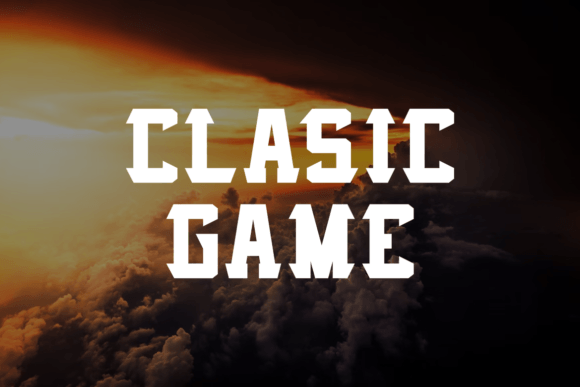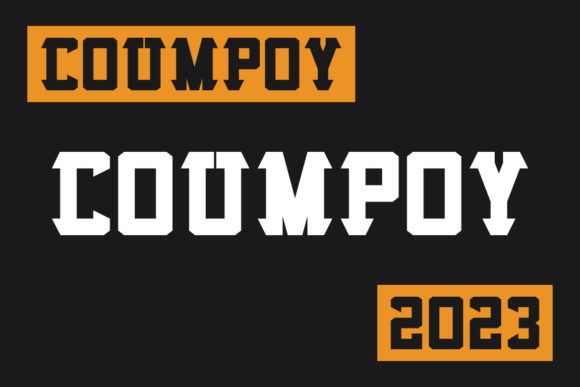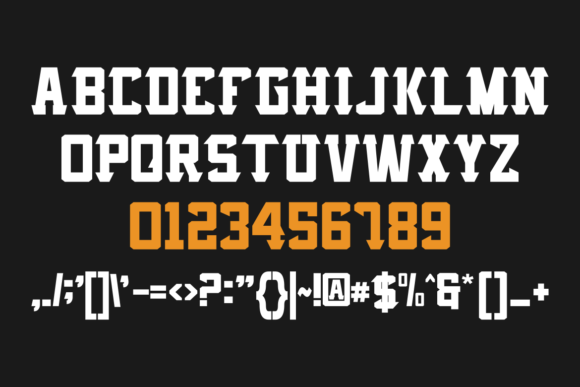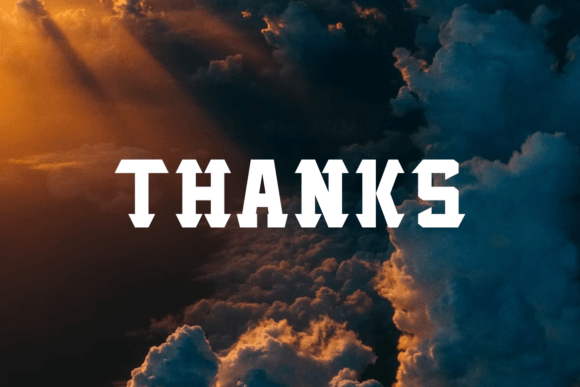
Introduction to Coumpoy Font
You’ve just finished brainstorming the perfect idea for your next creative project, and now it’s time to bring it to life with the right design elements. As you scroll through your font collection, you stumble upon the perfect match – the Coumpoy Font. Its modern and bold display style is sure to make your design stand out, whether you’re working on a digital project or crafting a handmade card.
The Coumpoy Font is more than just a design resource – it’s a high-quality tool that can elevate your creative projects to the next level. With its transparent background and versatility, you can use it for a wide range of applications, from presentations to greeting cards. And the best part? It’s available for a free download, making it an accessible addition to your design arsenal.
For designers, the Coumpoy Font is a valuable asset that can add a touch of sophistication to any project. Its unique style and modern feel make it an excellent choice for those looking to push the boundaries of their design. Whether you’re a seasoned pro or just starting out, the Coumpoy Font is sure to become a go-to resource for your creative endeavors.
Key Features of Coumpoy Font
- Includes a range of glyphs and characters, making it suitable for various languages and applications.
- Designed with a modern aesthetic, the Coumpoy Font is perfect for contemporary creative projects.
Honest Review: Coumpoy Font
I recently came across the Coumpoy Font, a high-quality design resource that caught my attention. The first thing that stood out was its sleek and modern aesthetic, making it perfect for a wide range of creative projects.
Here are some aspects that work well:
- ✨ Unique and modern design: The Coumpoy Font has a distinct style that sets it apart from other fonts.
- ✨ Versatile: It can be used for both digital and print projects, making it a great addition to any design toolkit.
- ⚠️ Limited font sizes: The Coumpoy Font may not be suitable for very large or very small text sizes.
- ⚠️ Transparent background: The font’s transparent background can sometimes be difficult to work with, especially when combining it with other design elements.
Overall, I’m impressed with the Coumpoy Font. Its unique design and versatility make it a valuable resource for any designer. While it may have some limitations, it’s definitely worth checking out for your next creative project.
Coumpoy Font is a high-quality design resource that can elevate your creative project to the next level. With its unique style and versatile design, it’s perfect for various applications, from branding to digital art.
Tips for Getting the Most Out of Coumpoy Font
To get the most out of Coumpoy Font, use it in combination with a transparent background to create a clean and modern design. Experiment with different font sizes, styles, and colors to find the perfect look for your project.
Coumpoy Font is ideal for various creative projects, including:
- Digital art and graphics
- Print design and marketing materials